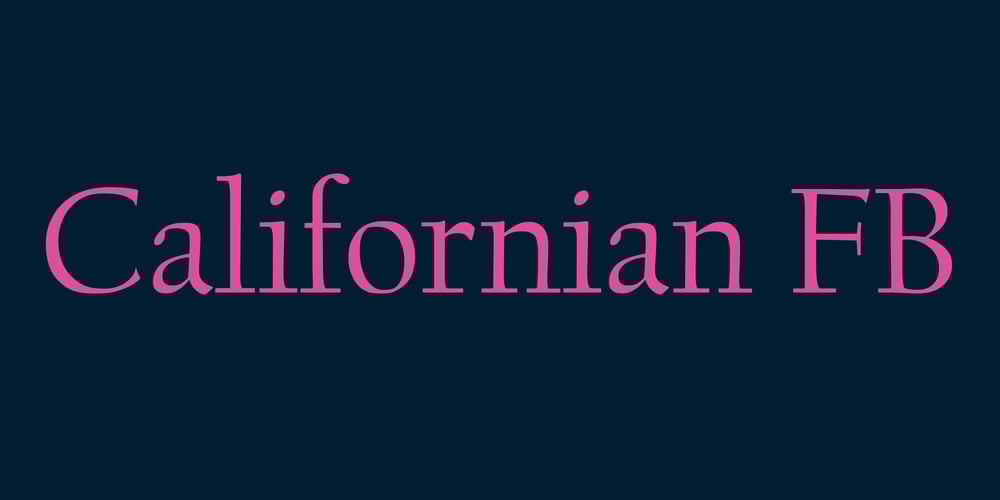
Californian FB Font Family was designed by David Berlow and published by Font Bureau. Californian FB contains 12 styles and family package options. In 1938, Frederic W. Goudy designed California Oldstyle, his most distinguished type, for the University of California Press. In 1958, Lanston Monotype issued it as Californian. Carol Twombly digitized the roman 30 years later for the University of California; David Berlow revised it for Font Bureau with italic and small caps; Jane Patterson designed the bold. In 1999, assisted by Richard Lipton and Jill Pichotta, Berlow designed the black and the text and display series; FB 1994–99